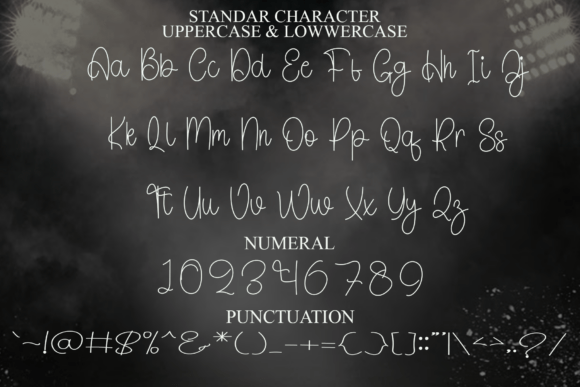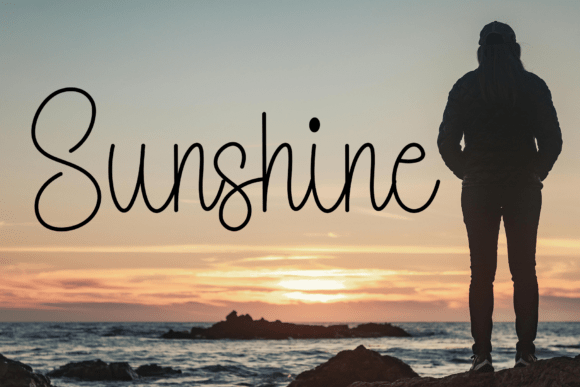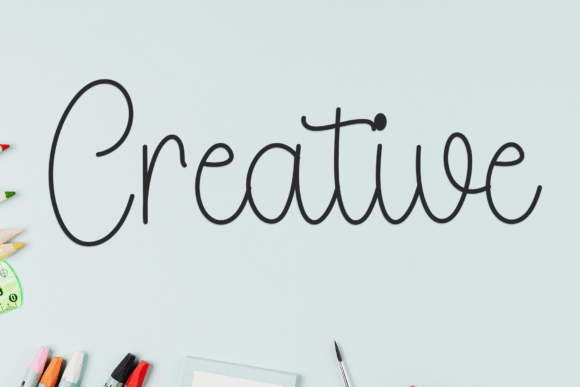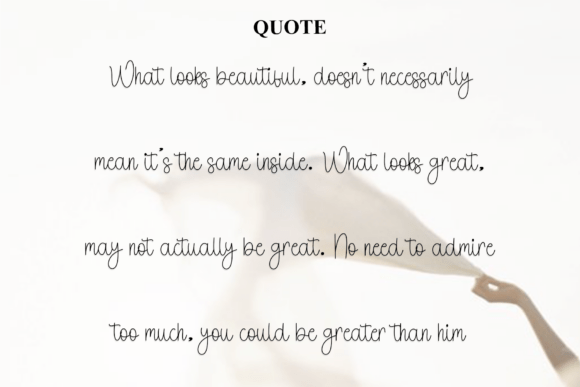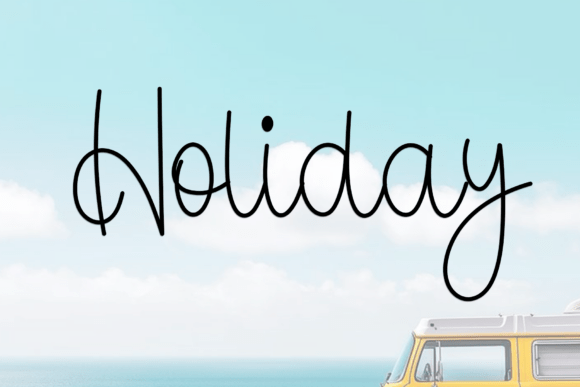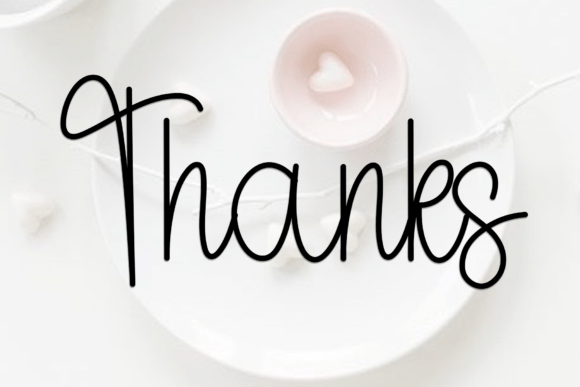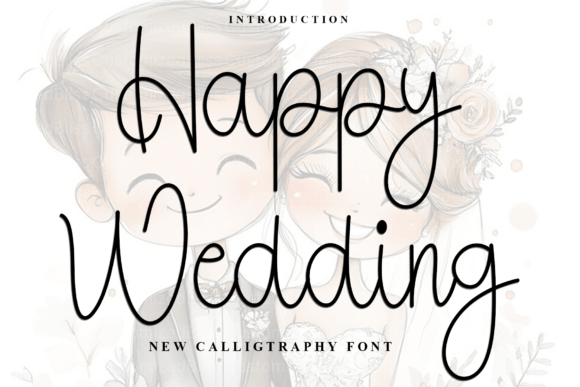
Introducing Happy Wedding Font: Elevate Your Designs with a Touch of Elegance
Are you searching for a font that adds a special touch to your designs? Look no further than the Happy Wedding font, a beautiful and eye-catching typeface designed with a soft, unique touch. Its distinctive strokes give it a special character, making it meaningful and versatile for future use. In this article, we’ll explore the features and benefits of the Happy Wedding font, and how it can enhance your designs across various artistic and creative fields.
A Unique and Versatile Font
The Happy Wedding font is a natural font style that boasts a distinctive and elegant appearance. Its soft, rounded edges and unique strokes make it perfect for a wide range of design projects, from crafts and invitations to branding and advertising. With various characters, this font is ideal for designers and crafters looking to add a personal touch to their work.
The Happy Wedding font is a versatile typeface that can be used in a variety of design projects, including:
• Branding and packaging design
• Advertising and marketing materials
• Crafts and DIY projects
• Digital designs, such as social media graphics and blog posts
Its unique and elegant appearance makes it perfect for designers and crafters looking to add a touch of sophistication to their work.
Key Features of Happy Wedding Font
• Soft, unique touch with distinctive strokes
• Various characters for added versatility
• Ideal for a wide range of design projects and crafts
• Elegant and sophisticated appearance
Why Choose Happy Wedding Font?
There are many reasons why designers and crafters should choose the Happy Wedding font for their projects. Here are a few:
• Unique and eye-catching appearance: The Happy Wedding font stands out from more traditional fonts, adding a special touch to your designs.
• Versatility: This font can be used in a wide range of design projects, from crafts to branding and advertising.
• Elegance and sophistication: This font adds a touch of elegance and sophistication to your designs, making them appealing to a wide range of audiences.
In conclusion, the Happy Wedding font is a beautiful and versatile typeface that can elevate your designs to the next level. Its unique and elegant appearance, combined with its compatibility and flexibility, make it perfect for a wide range of design projects and crafts. Whether you’re a designer, crafter, or DIY enthusiast, the Happy Wedding font is a great choice for adding a touch of sophistication and elegance to your work.